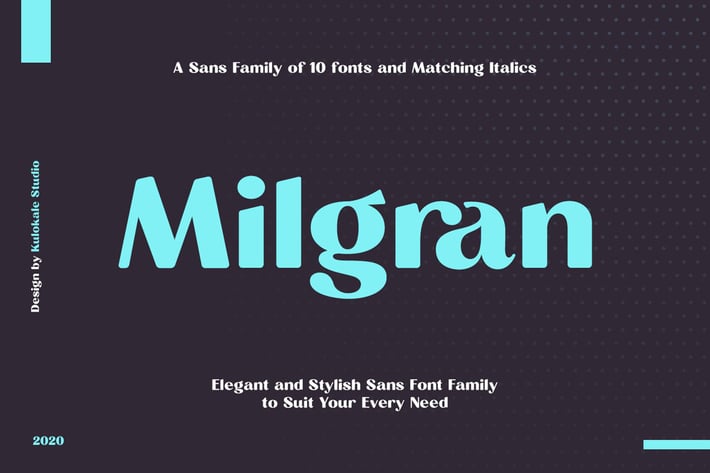
Milgran Sans Font Family
Milgran is a modern and elegant sans-serif font. Milgran is well-suited for advertising, branding, logotypes, packaging, titles, headlines and editorial design.
Milgran is perfect for many different projects such as logos & branding, invitation, stationery, wedding designs, social media posts, advertisements, printed quotes, product packaging, product designs, label, photography, watermark, special events or anything.